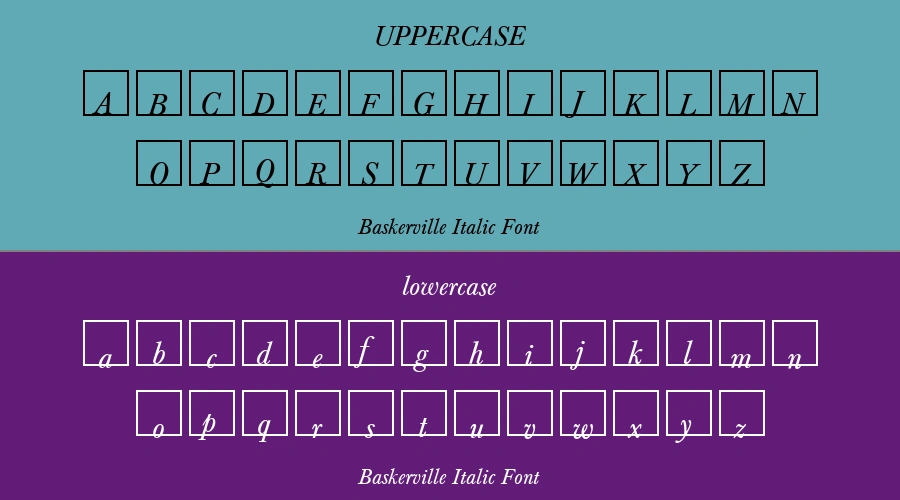
About Baskerville Italic Font
Baskerville Italic Font represents a sophisticated approach to type design, balancing geometric precision with technical accuracy. Perfect for advertising headers, this font family showcases impressive durability and user trust throughout its character set. Designers appreciate its versatility and reliability.
Designers will appreciate nuanced touches including bold expressions and display figures, adding sophistication to any project. These features become apparent in exhibition materials, where special effects matters most. The careful treatment of aperture size and institutional trust ensures optimal performance.